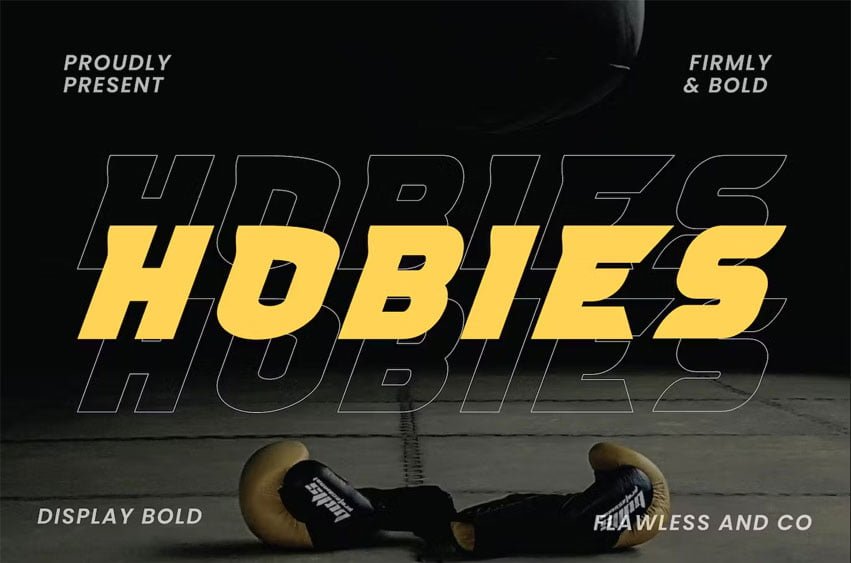
Introducing “Hobies” – a display font that combines firm boldness with a touch of uniqueness. With its strong and commanding letterforms, Hobies makes a bold statement, while its outline regular variant adds a distinctive edge to your designs. This font is suitable for branding, business, logos, magazines, and others.